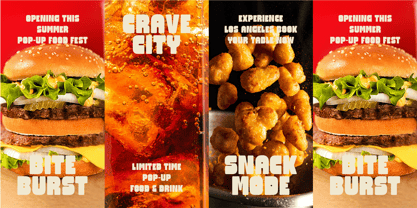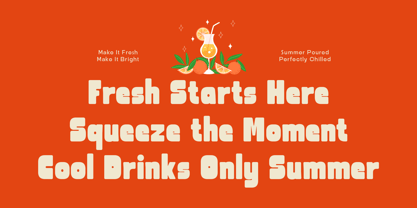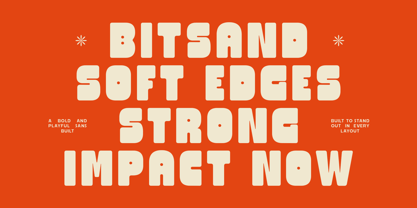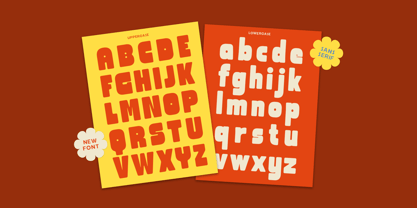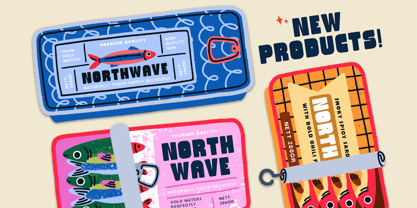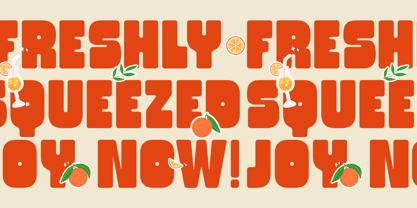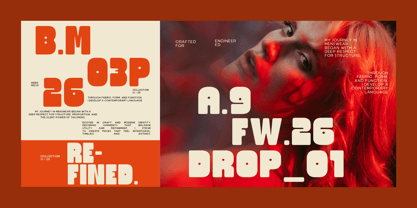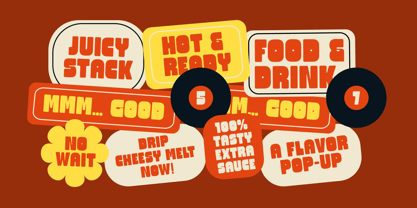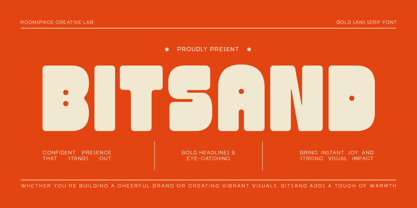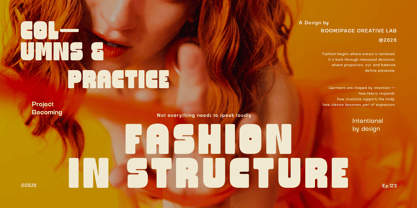
Bitsand
by Jafar07
The Bitsand Font Family was designed by Bakhrudin Ja'far and published by Jafar07. Bitsand contains 2 styles and family package options. More about this family
Bitsand is a bold display sans-serif font designed to bring warmth, energy, and personality into your designs. With its rounded shapes and soft edges, it creates a friendly and approachable tone while still delivering strong visual impact. Carefully crafted with balanced proportions and smooth curves, Bitsand offers excellent readability in large sizes. Its bold structure makes it perfect for headlines, logos, and standout typography, while its playful character adds a unique charm to every composition. Features: Regular and Outline files Rounded and soft shapes Uppercase & lowercase Multilingual support Smooth kerning & spacing Perfect For : Branding, logos, packaging, social media, posters, advertising, headlines, digital content
Designers: Bakhrudin Ja'far
Foundry: Jafar07